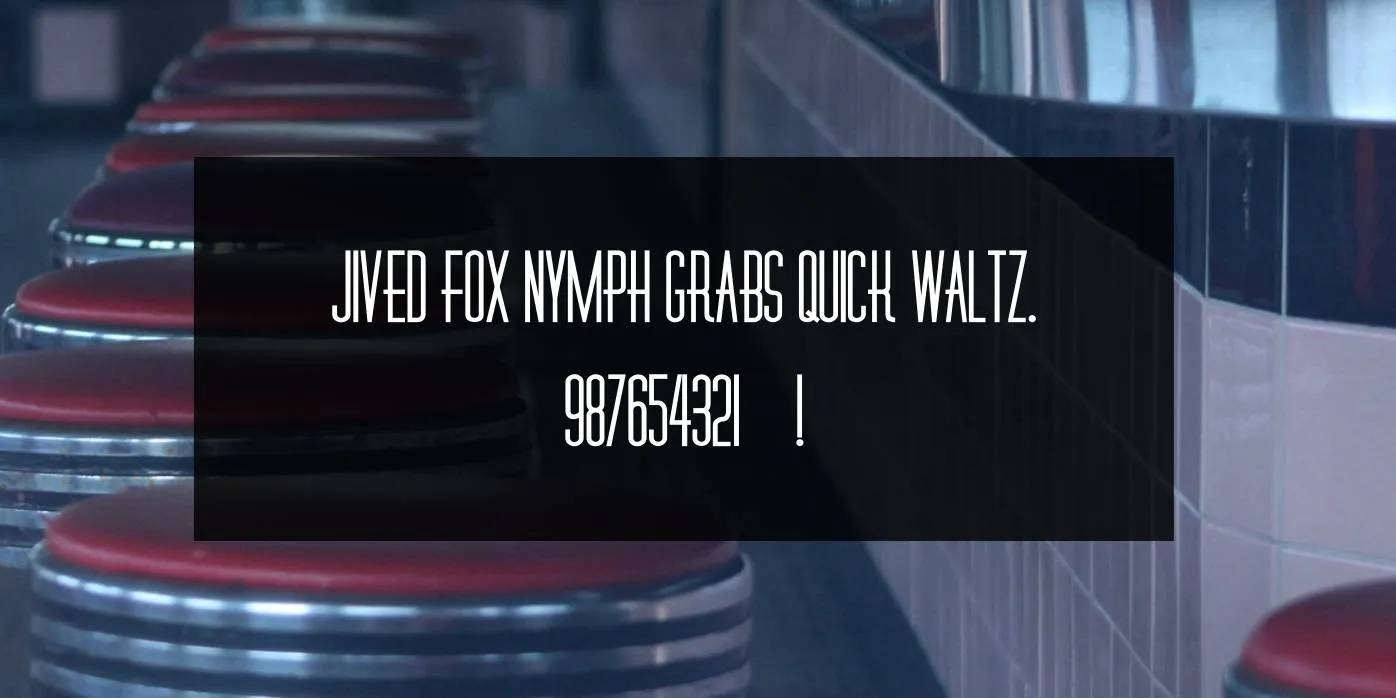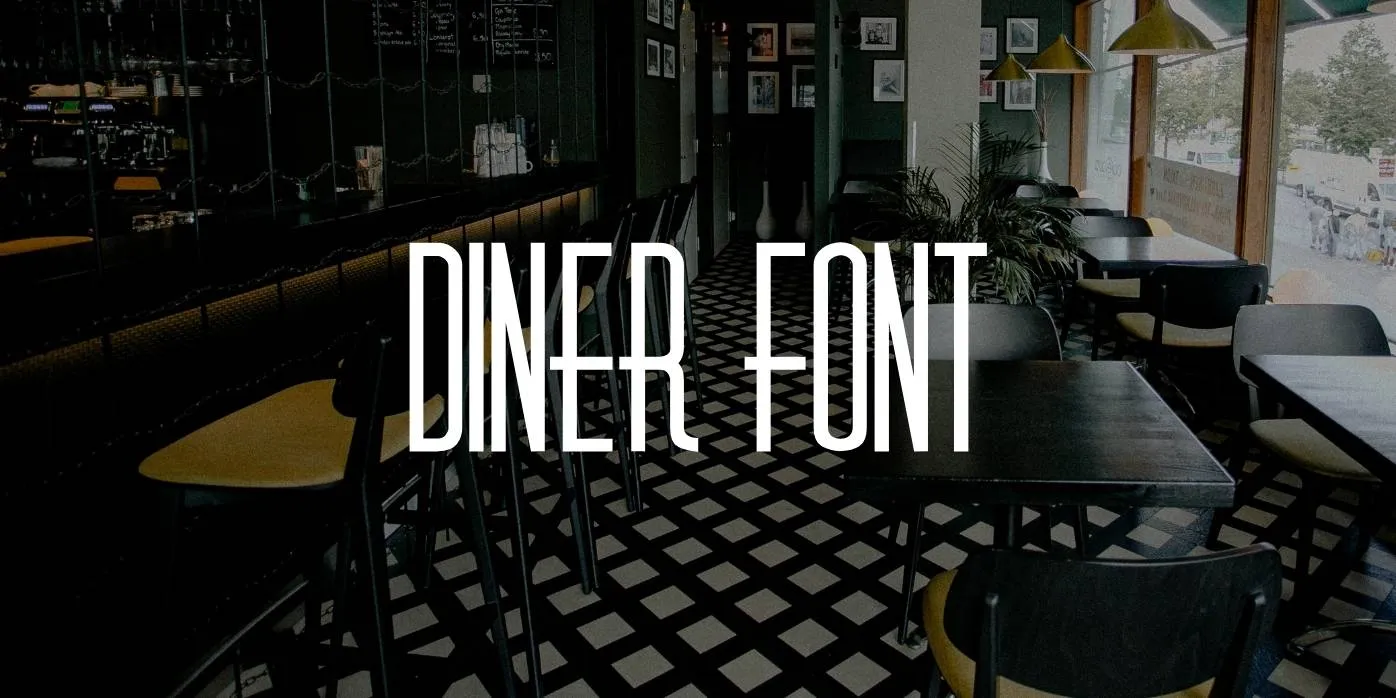
Diner Font
Today, we are consulting on a very popular typeface named Diner Font. It belongs to the Sans Serif typeface. Mr. David Rakowski is best for many designs.
This sans-serif typeface has available in eight weights. This classy font is perfect for branding, and display uses. You can create a stylish look with this amazing font. This typeface is available in both uppercase and lowercase letters.
It supports Latin, Cyrillic, and Greek languages. Its large X-height makes it highly legible even in small sizes. You can use this font for both digital and print design projects. Another similar font which is adget sans font is perfect for different designs.